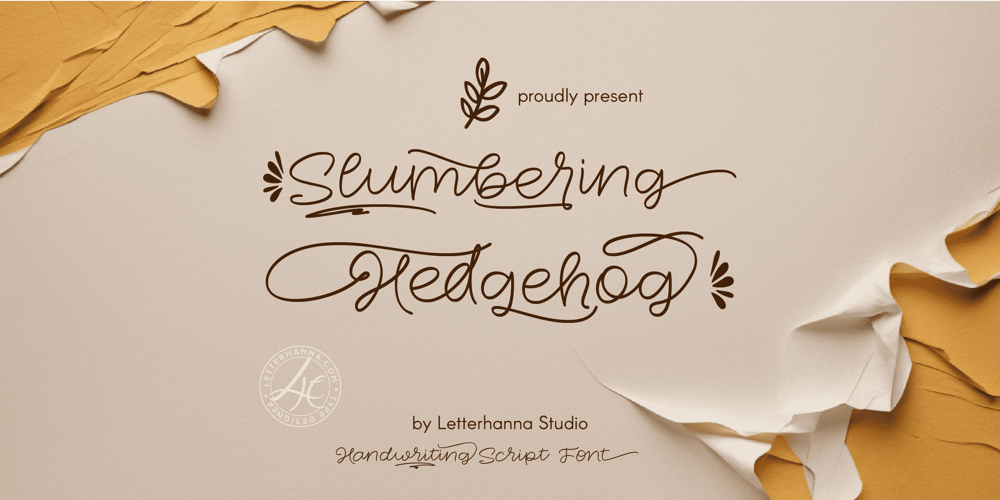
Slumbering Hedgehog Font Family was designed by Rinaldo Hasibuan and published by Letterhanna Studio. Slumbering Hedgehog contains 1 styles and family package options. Slumbering Hedgehog is a playful script font, so cuddly it might just make you want to curl up with a mug of cocoa and a sketchbook. Each letter is hand-drawn with a touch of whimsy, perfect for adding a dose of adorable charm to your invitations, notes, or anything that needs a burst of personality. Whether you’re crafting greetings for loved ones, writing grocery lists that suddenly turn into works of art, or just doodling because the world needs more cuteness, Slumbering Hedgehog will be your perfect companion.